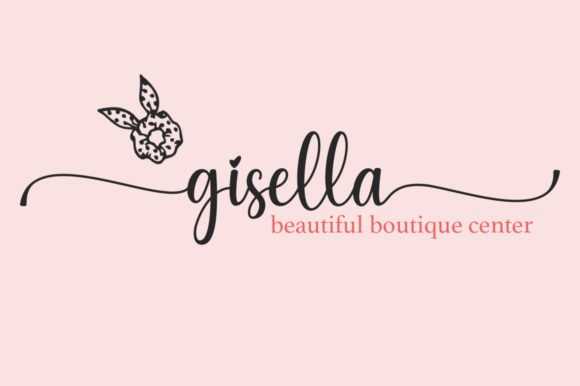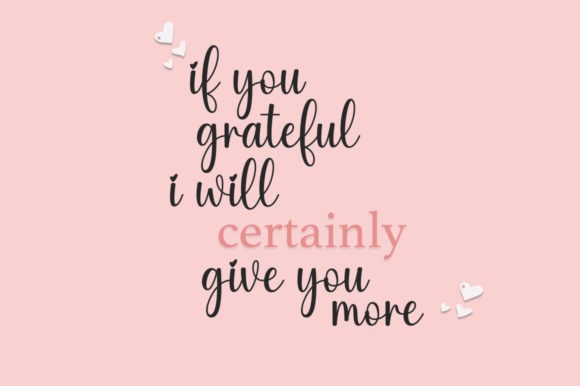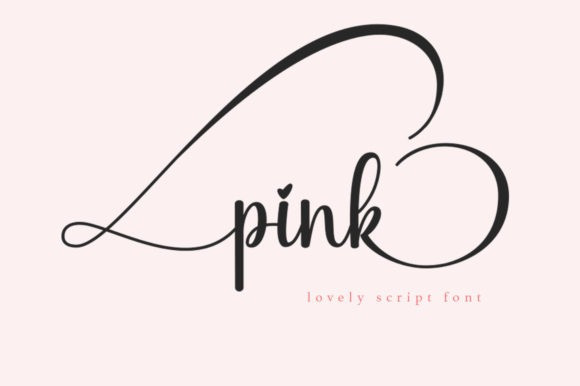
Cotton Pink Font
Cotton Pink Font is a thin lettered and delicate script font. It is PUA encoded which means you can access all of the amazing glyphs and ligatures with ease!
Add it confidently to your favorite creations and let yourself be amazed by the outcome generated.